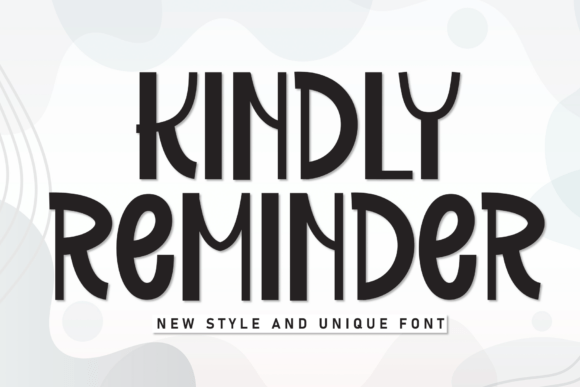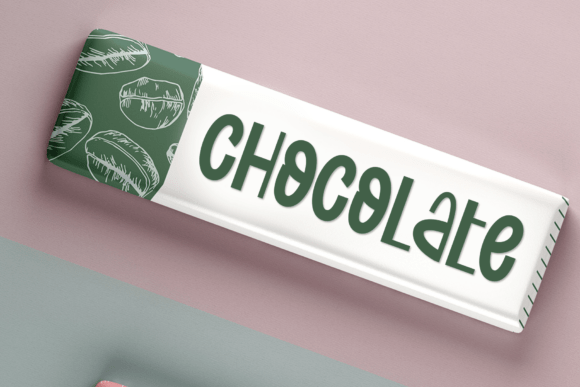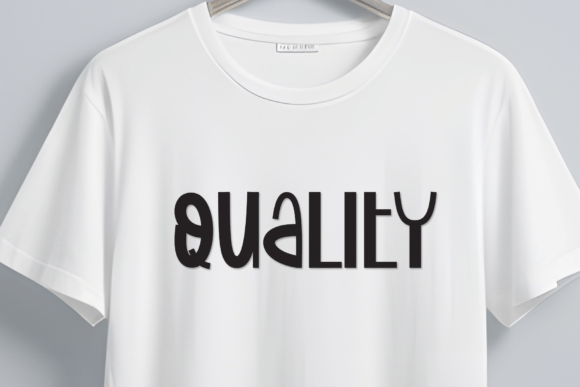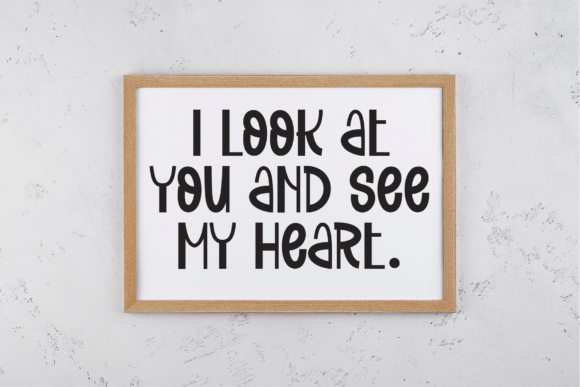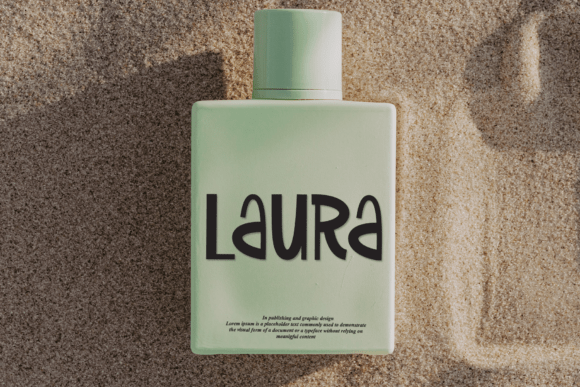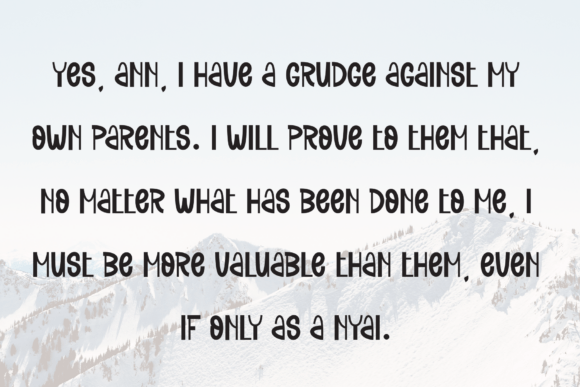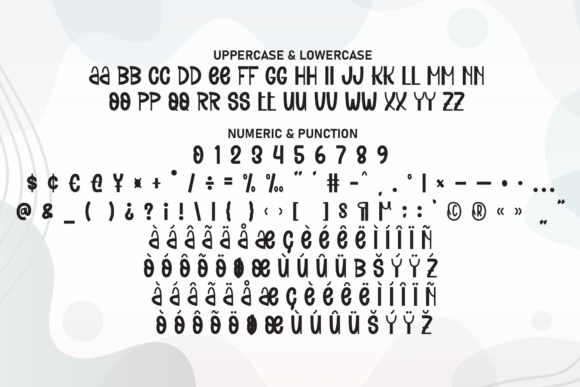
Bringing Joy to Your Designs: Introducing Kindly Reminder Font
Have you ever sat down to create something special for a loved one, only to find yourself struggling to find the right words to express your feelings? The blank page stares back at you, and all you want to do is give your design that extra something that will make it truly unforgettable.
That’s where the Kindly Reminder Font comes in – a charming, handcrafted display font that exudes warmth and friendliness. This delightful font is the perfect addition to any design project that needs a touch of whimsy and personality. Whether you’re creating wedding invitations, greeting cards, or any other design that demands a hint of romance, this font is sure to bring a smile to your face and a touch of joy to your creations.
With the Kindly Reminder Font, you’ll be able to add a sweet and endearing touch to your designs, making them truly special and memorable. As a designer, you know how much of a difference a well-chosen font can make, and this font is sure to be a valuable addition to your toolkit.
Kindly Reminder Font Key Features
- Unique Characteristics: The Kindly Reminder Font features a distinctive, handwritten style with a friendly and approachable tone, making it ideal for creating eye-catching headlines and titles.
- Font Family: The font family includes multiple weights, from Light to Bold, allowing users to choose the perfect style to match their design needs.
Kindly Reminder Font Review
Overall, I have mixed feelings about the Kindly Reminder Font. On one hand, there are some things that I genuinely enjoy about it. ✨ The font has a warm and inviting feel to it, making it perfect for creating a friendly and approachable atmosphere in designs. ✨ The subtle imperfections in the font also give it a unique, handmade feel that can add a lot of character to a project. ✨ Additionally, the font is highly legible, even at smaller font sizes.
- Warm and inviting feel
- Unique, handmade aesthetic
- Highly legible
However, there are also some limitations to the font that prevent me from giving it a glowing review. ⚠️ One major issue is that the font can feel a bit too playful or childish for more formal or professional designs. ⚠️ Additionally, the font’s imperfections can sometimes make it difficult to read, especially at very small font sizes. ⚠️ Finally, the font’s character set is not as extensive as some other fonts, which can limit its versatility.
- May feel too playful or childish for formal designs
- Can be difficult to read at very small font sizes
- Limited character set
Overall, I would recommend the Kindly Reminder Font for projects where a friendly and approachable atmosphere is desired. However, it may not be the best choice for more formal or professional designs.
Use the Kindly Reminder font to create a friendly and approachable tone in your designs. Pair the font with bold and bright colors to grab attention. Experiment with different font sizes and styles to create visual hierarchy and emphasis.
The Kindly Reminder font is perfect for:
– Social media graphics and ads
– Marketing materials and brochures
– Website design and content